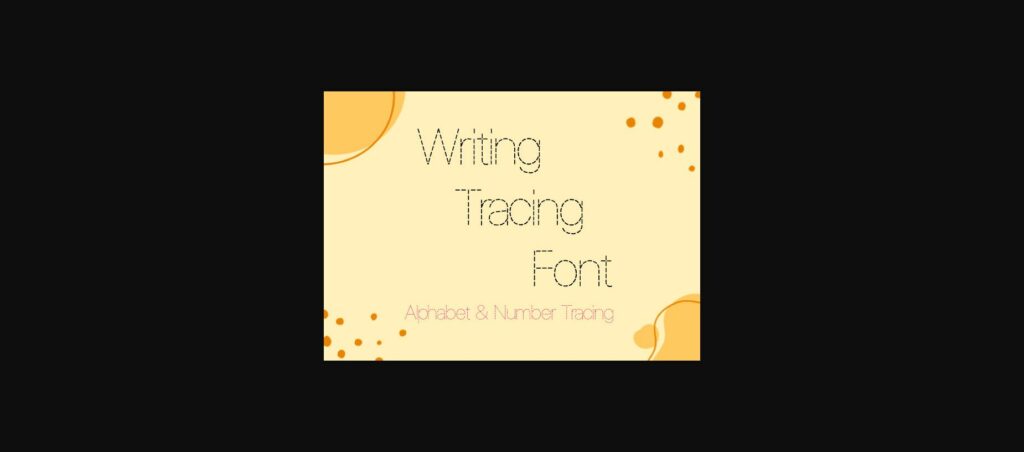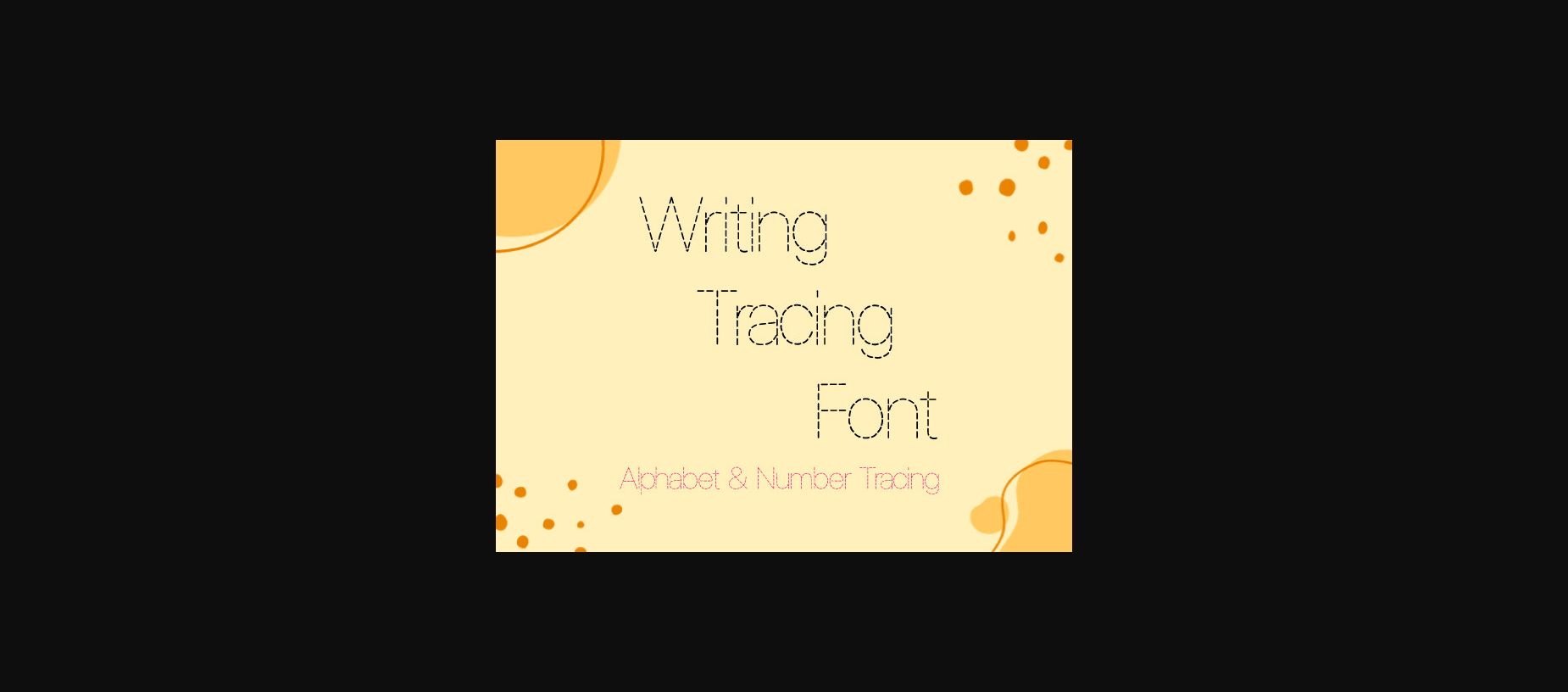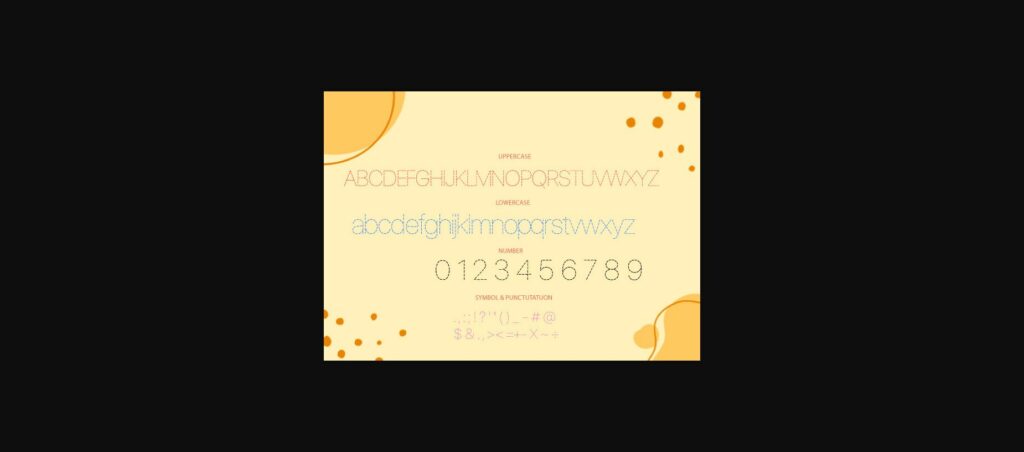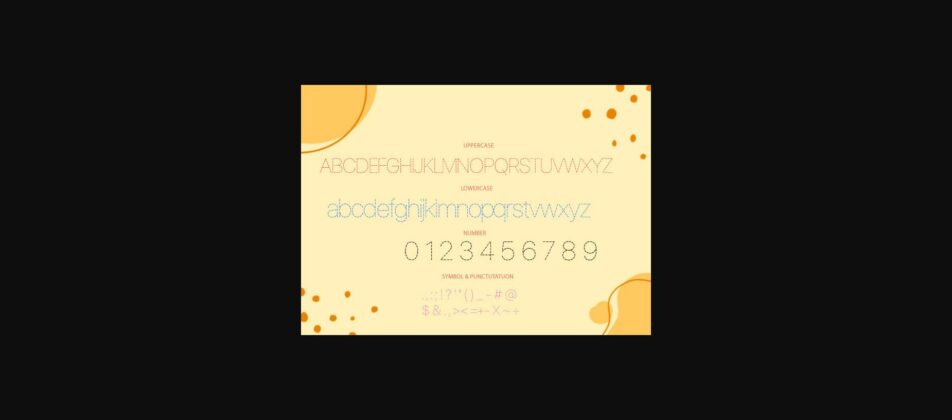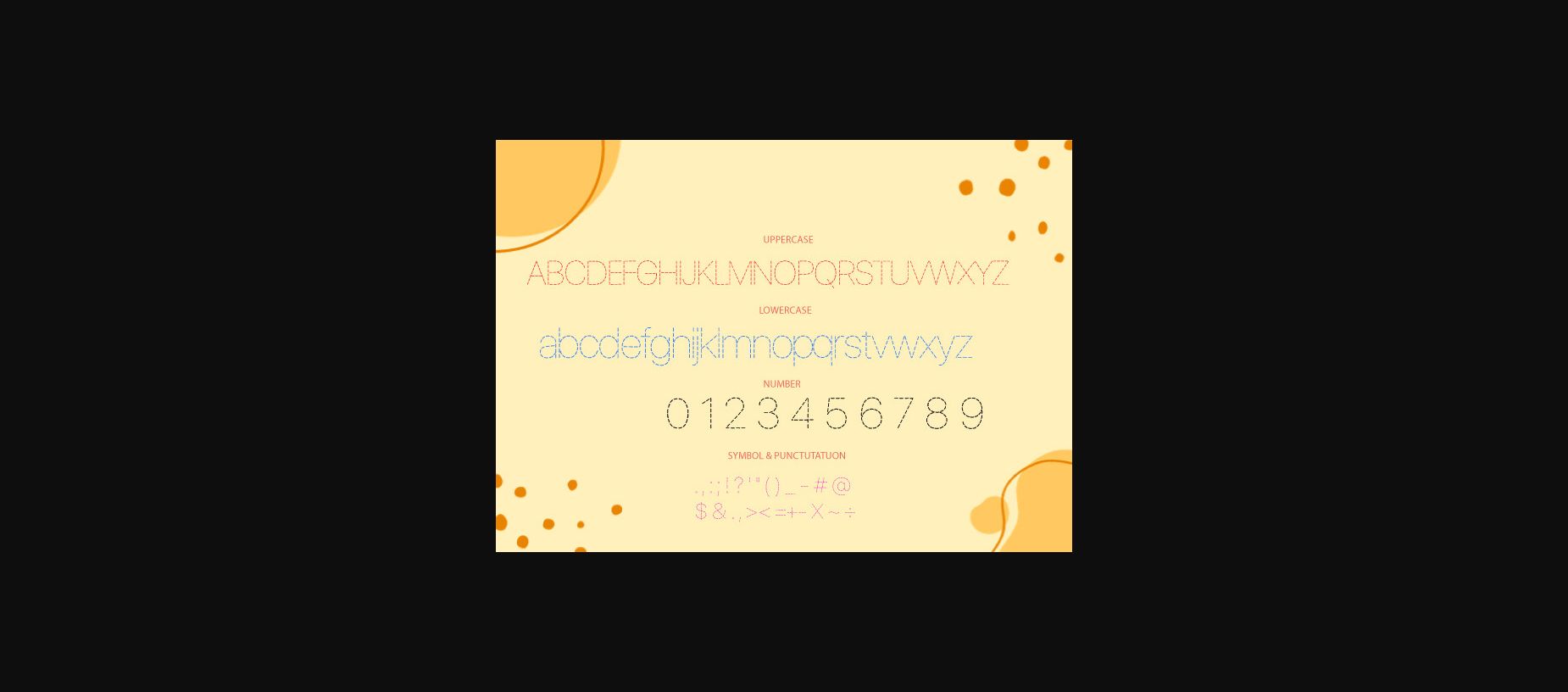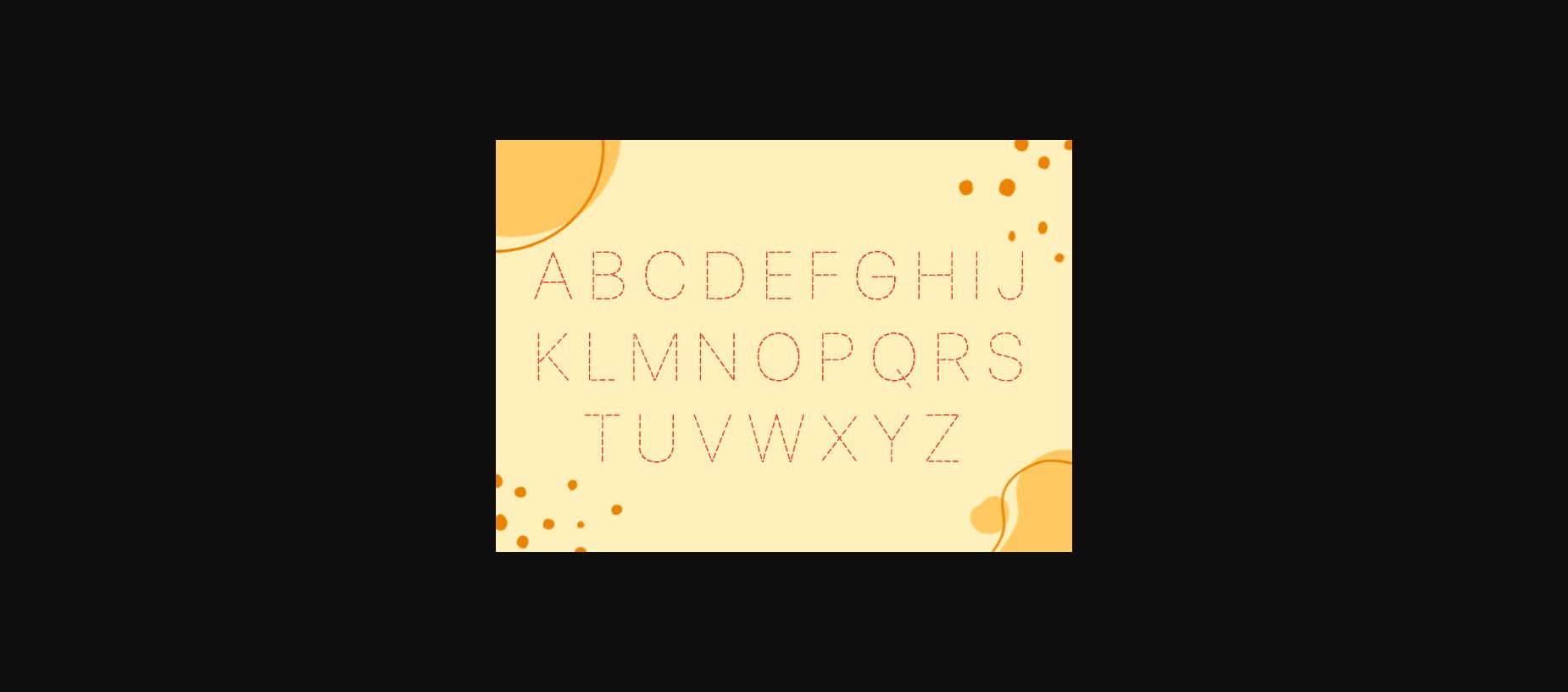
About Writing Tracing Font
Practicing your letters and handwriting will be easier with the Writing Tracing Font, which is suitable for children and beginners. This font consists of lines. to guide your writing Great for learning the basics or improving your handwriting skills. Suitable for all ages.